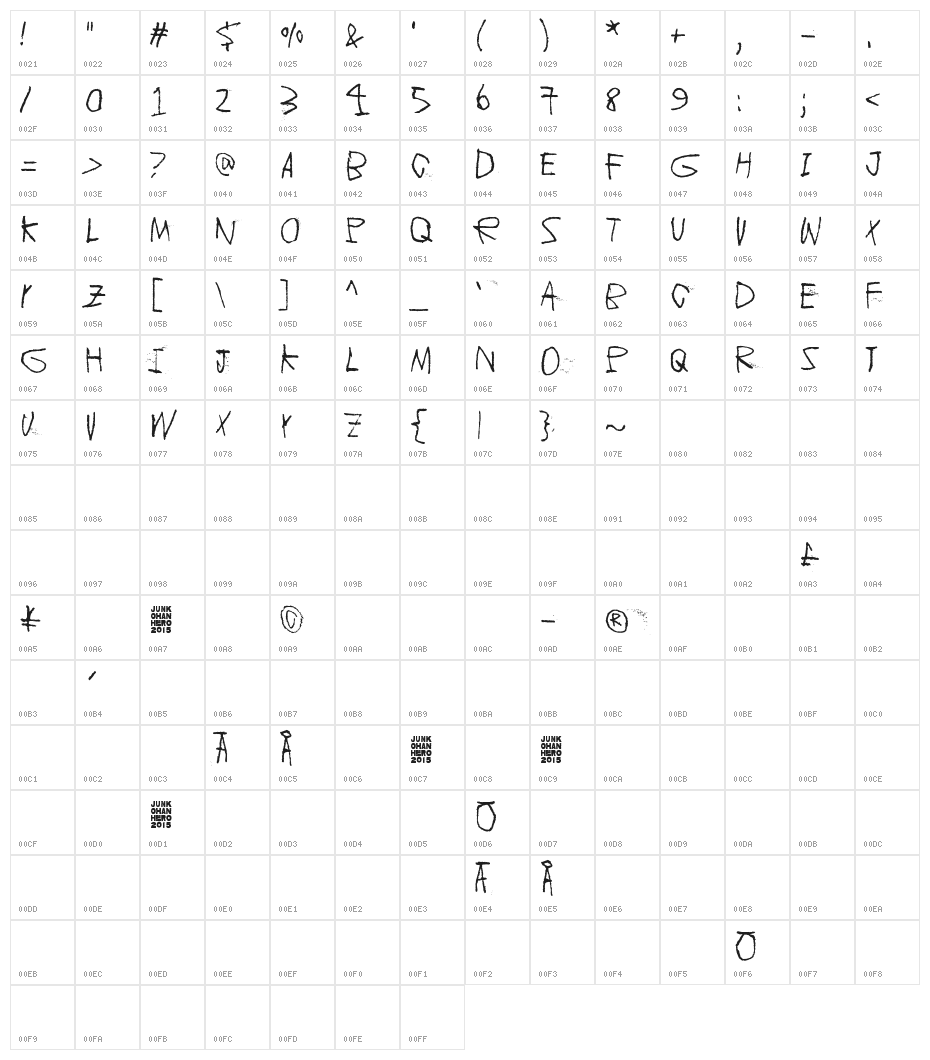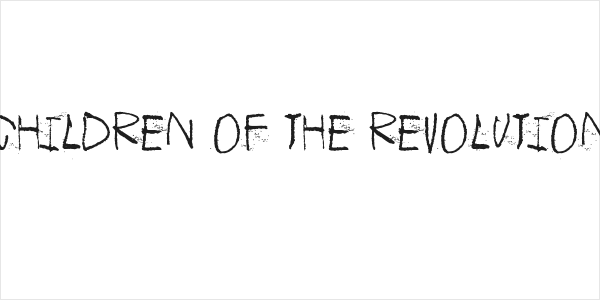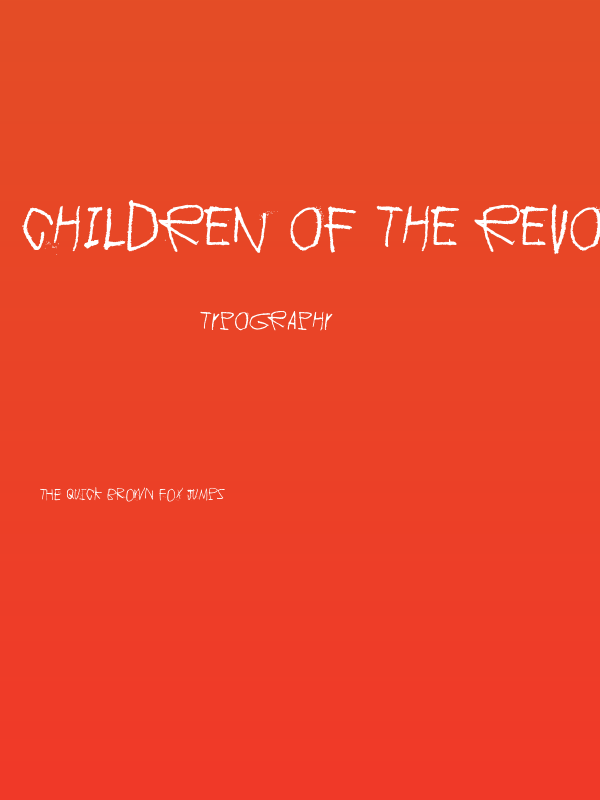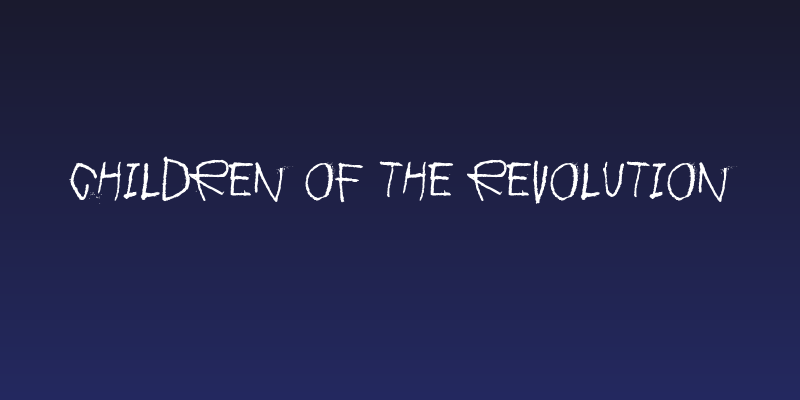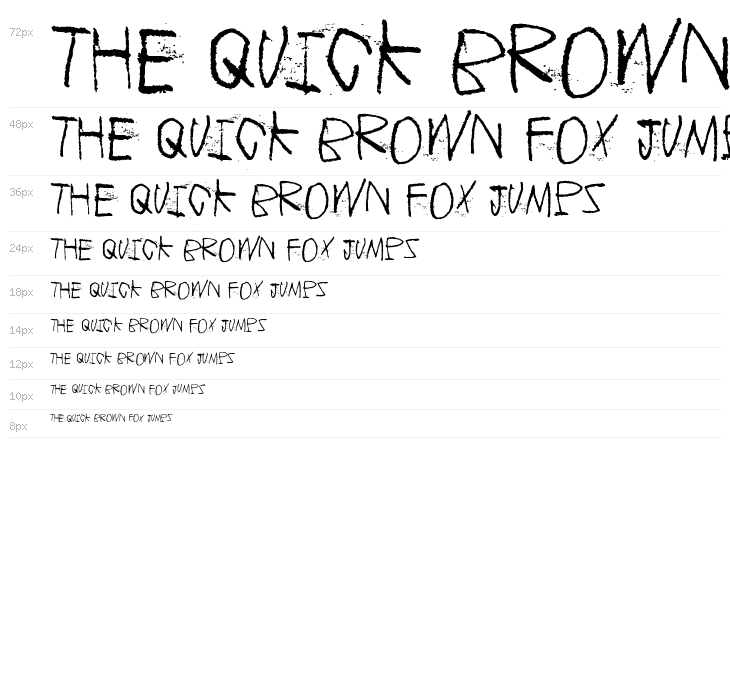
Children of the revolution Font
Children of the revolution Description
This font exudes a raw, hand-drawn aesthetic reminiscent of rebellious graffiti or a hastily scribbled note. The characters are unevenly weighted, with a rough texture that suggests a sense of urgency and spontaneity. The uppercase and lowercase letters maintain a consistent style, with jagged edges and irregular strokes that add to its dynamic appearance. Numbers and special characters follow the same rugged theme, making the font ideal for projects that require a bold, unconventional look. Its unique style captures attention and conveys a sense of individuality and defiance.
| Use Case | Logos, Posters, Artistic projects |
| Proposed Projects | Ideal for album covers, street art-inspired designs, protest posters, and edgy branding projects. |